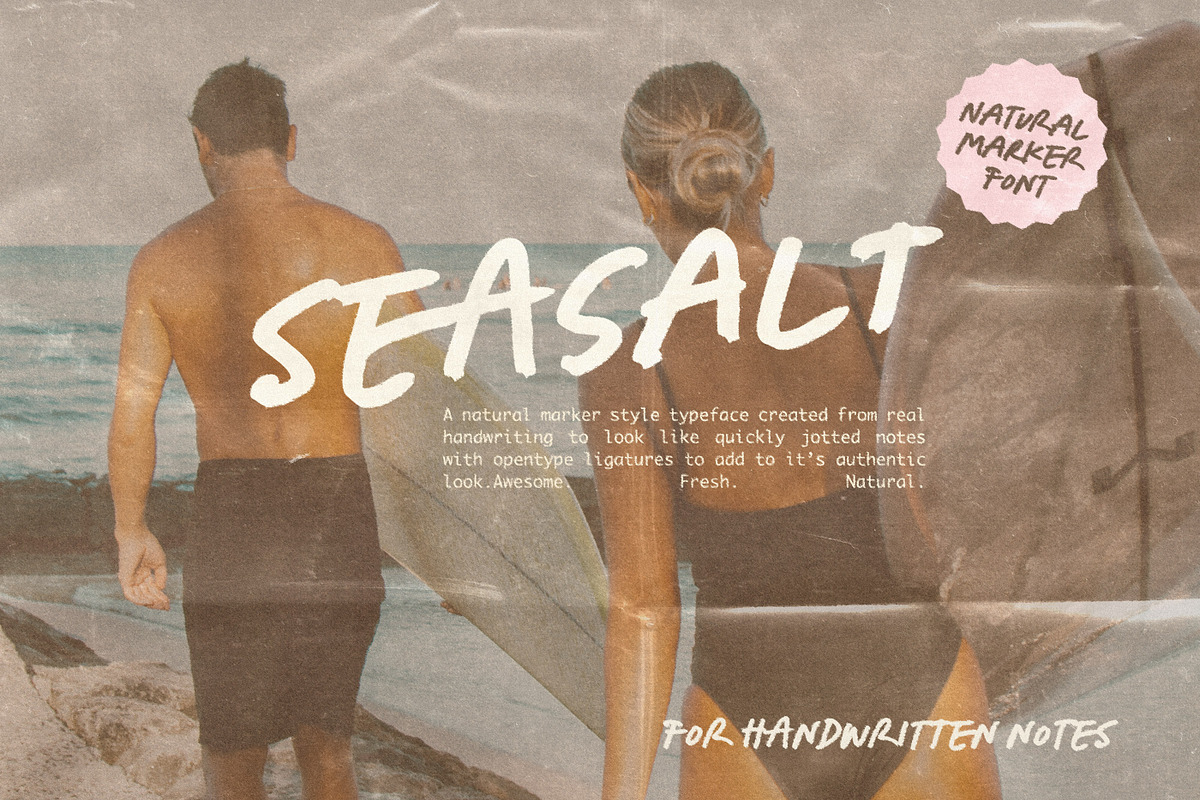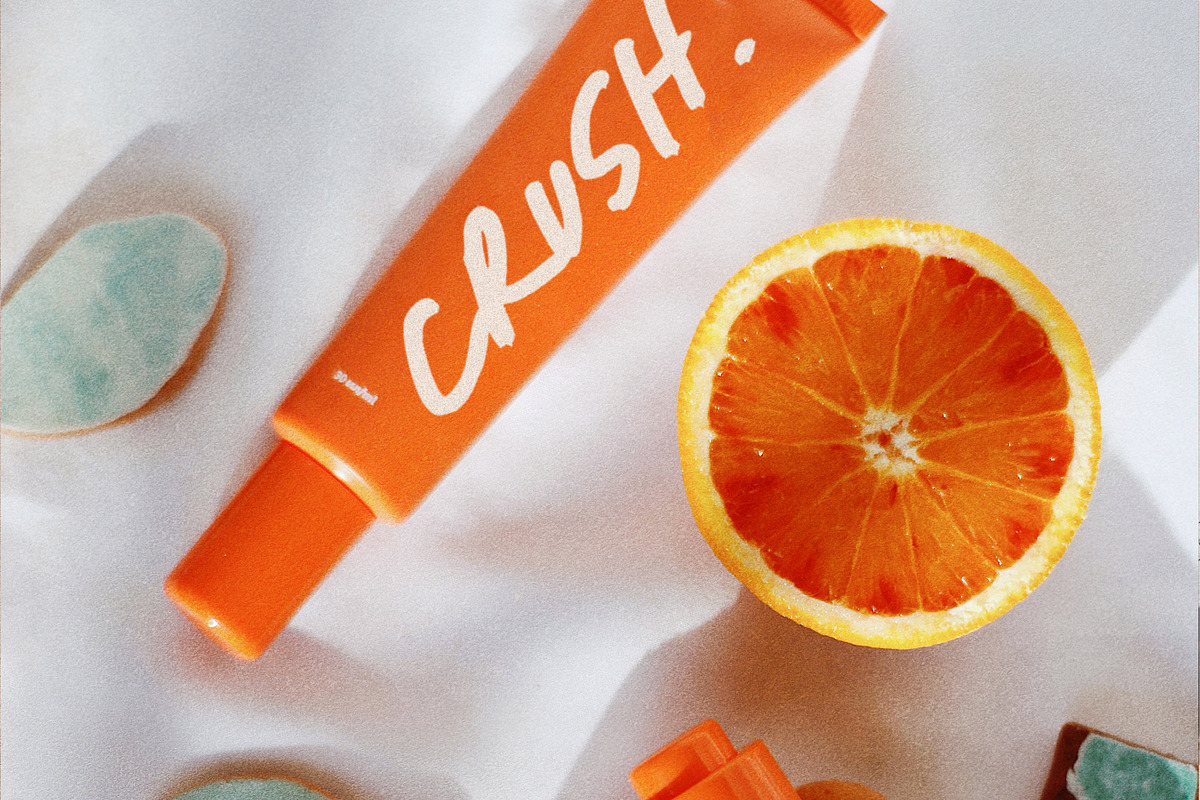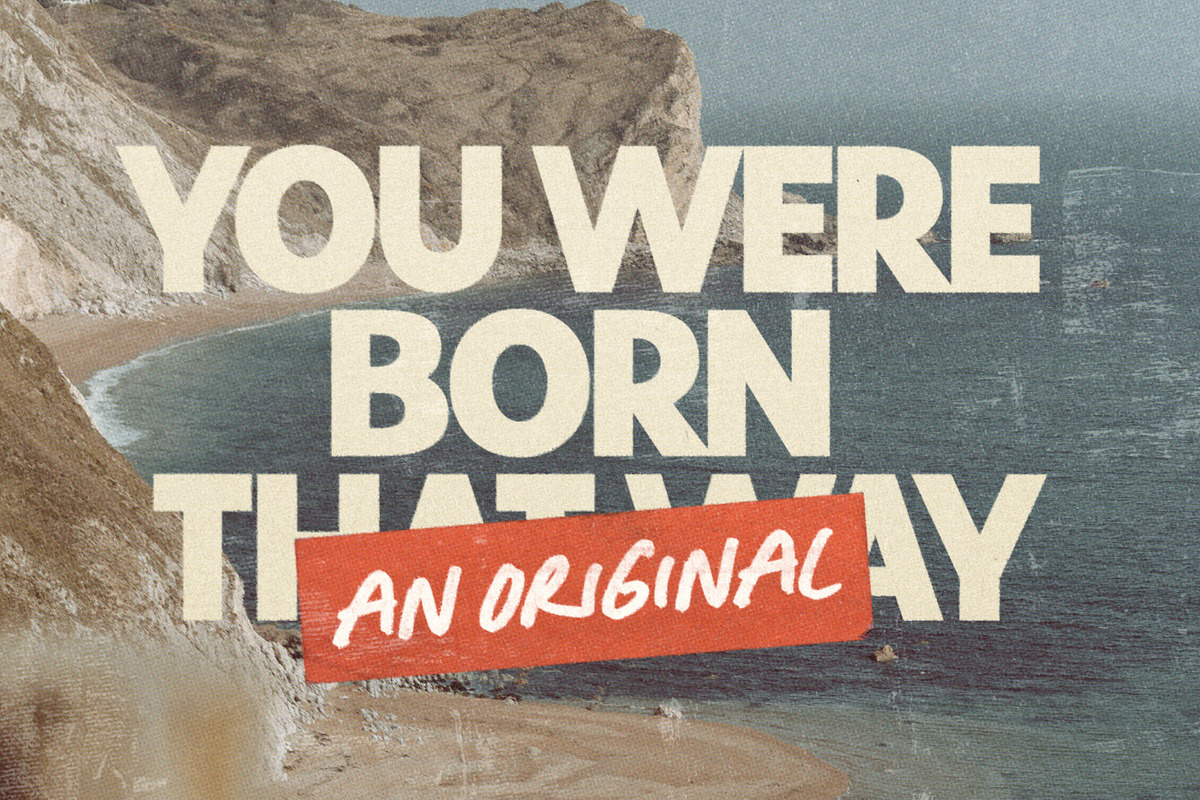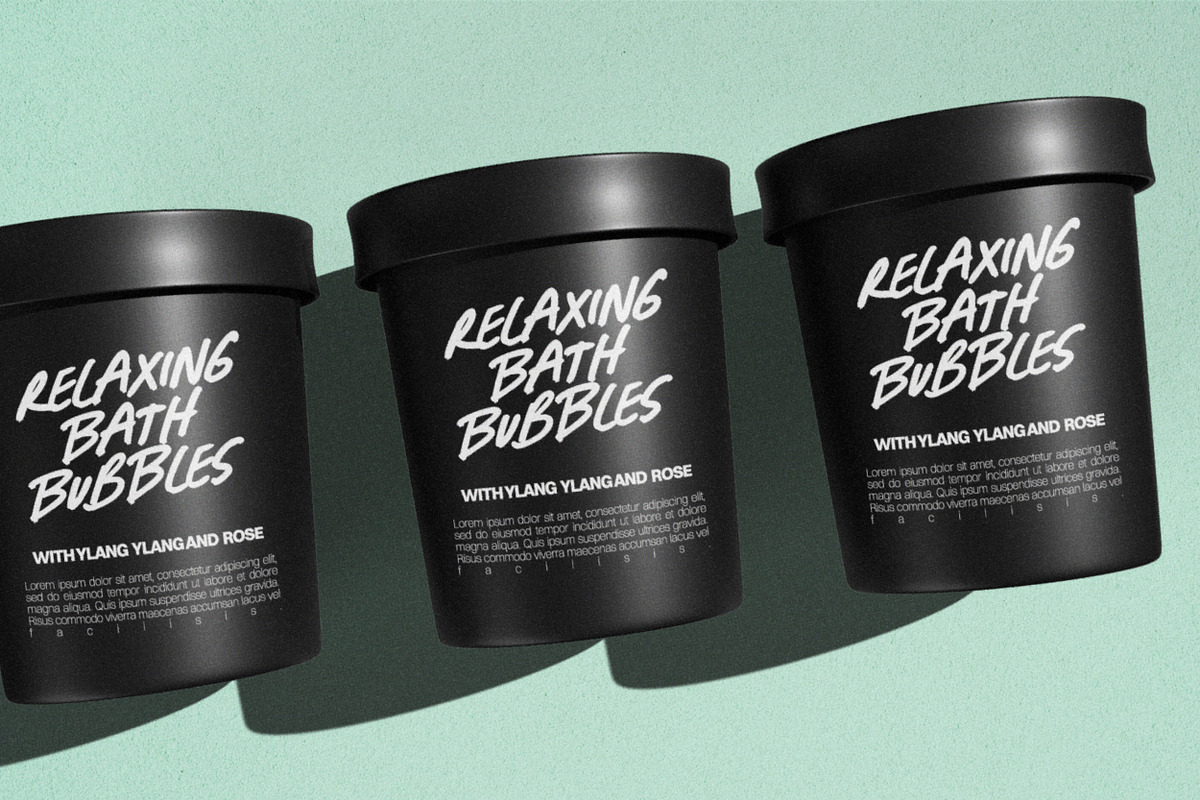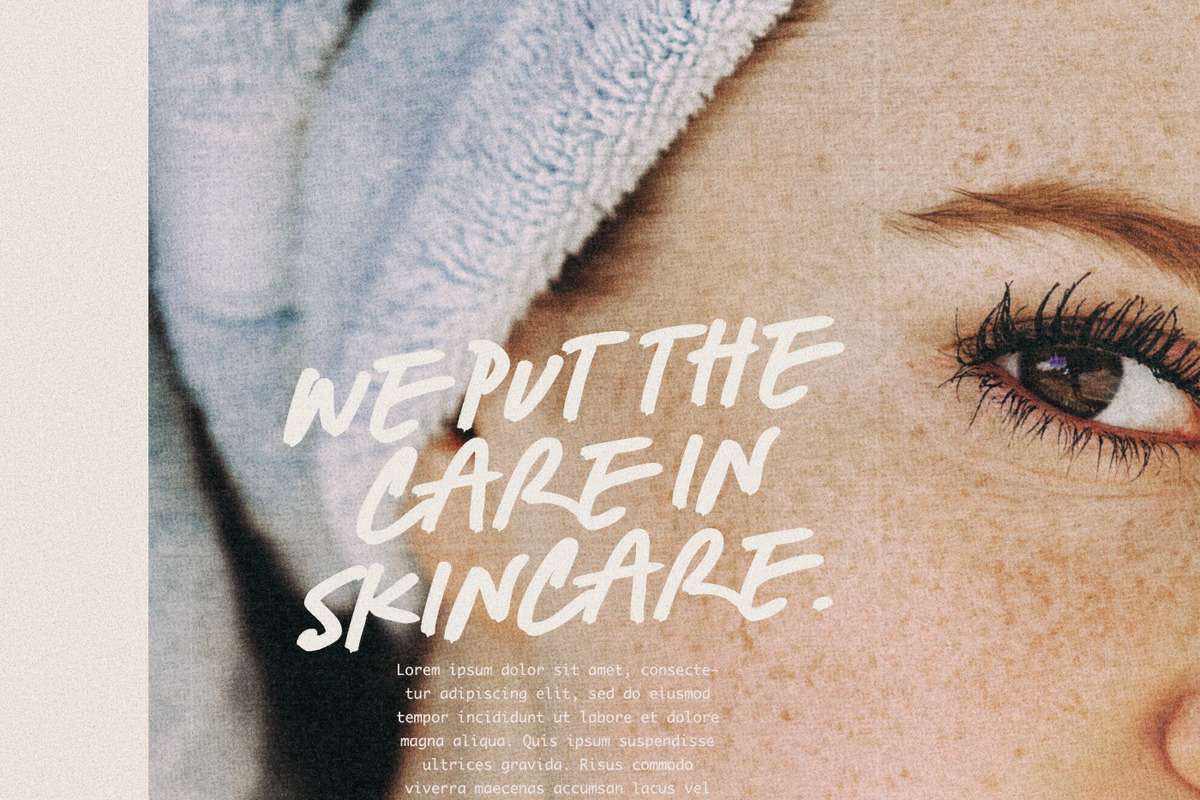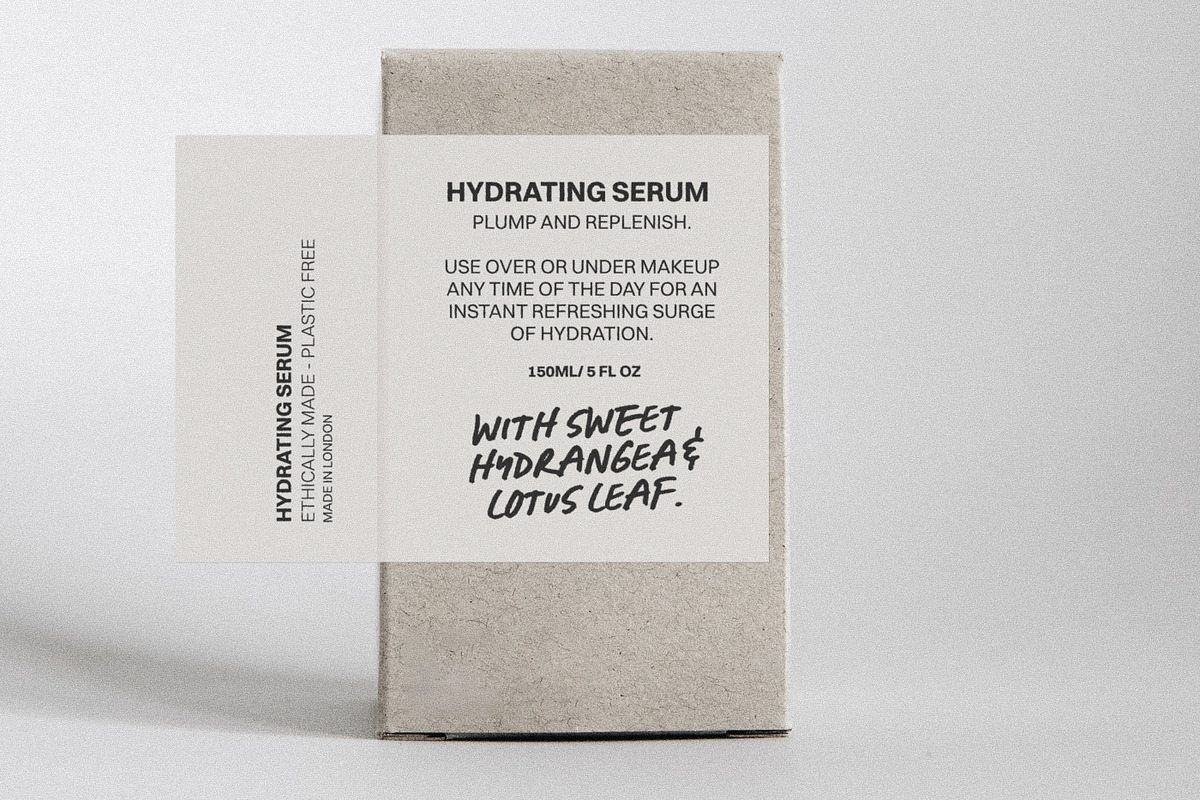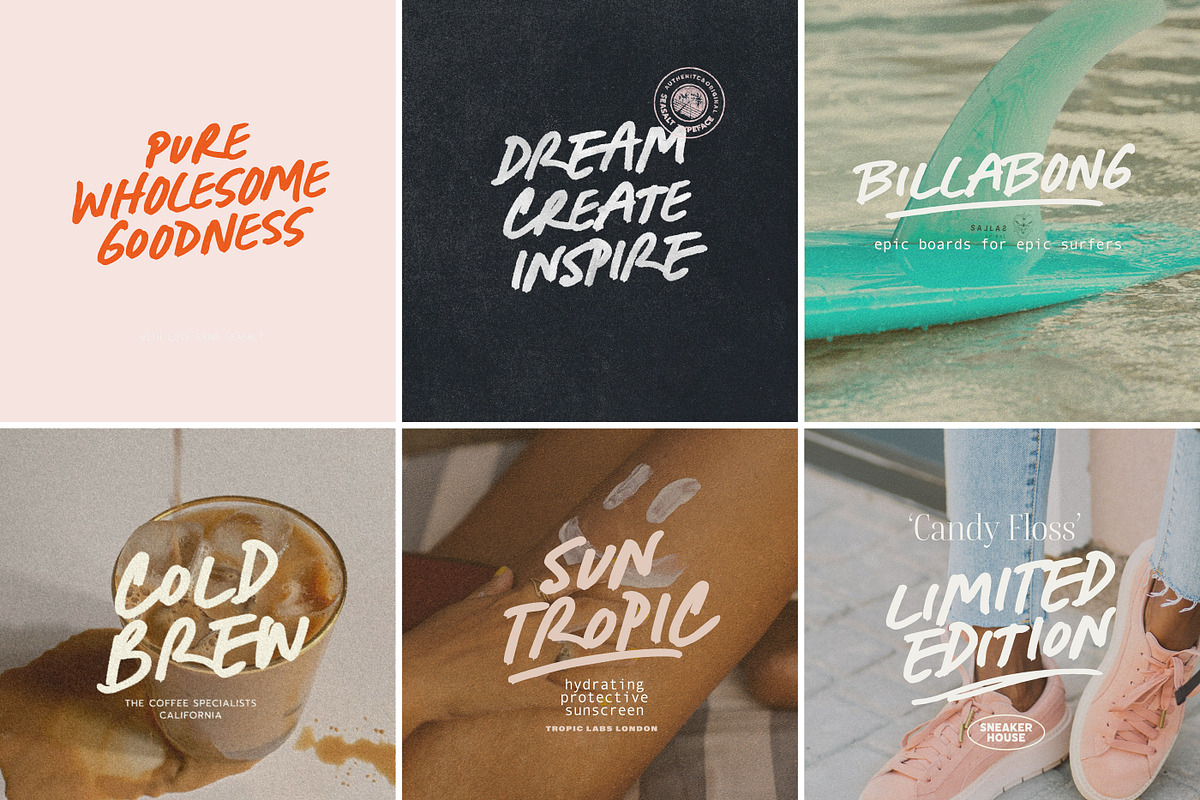
Seasalt - Casual Marker typeface
A breath of fresh air! Seasalt typeface was designed to emulate natural-looking handwritten notes.
Opentype ligatures are included to make the typeface appear more realistic and last but not least, it includes a doodles font - arrows, scribbles and scrawls to help your designs pop!
The typeface comes in three different variants to suit the look you are after : Upright, Regular and Slanted.